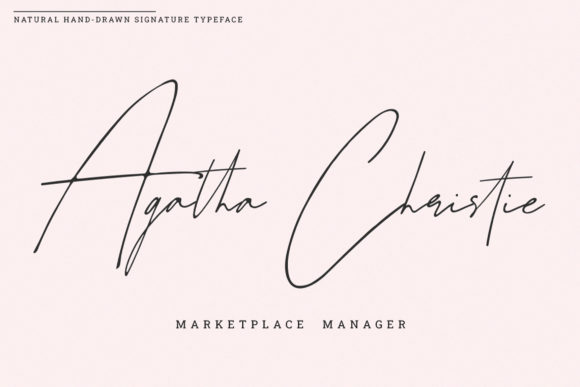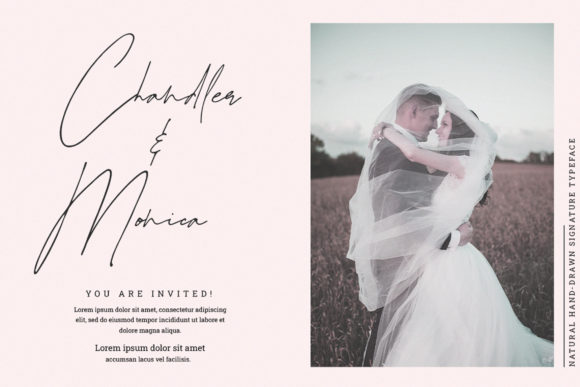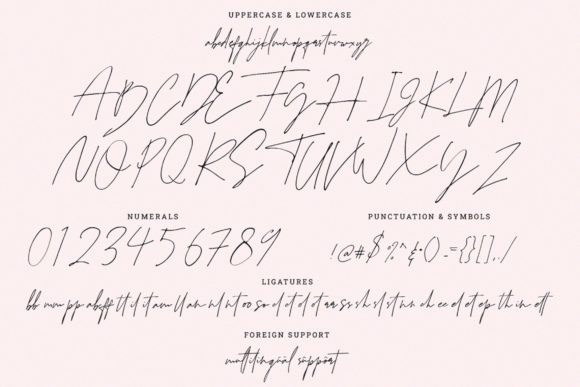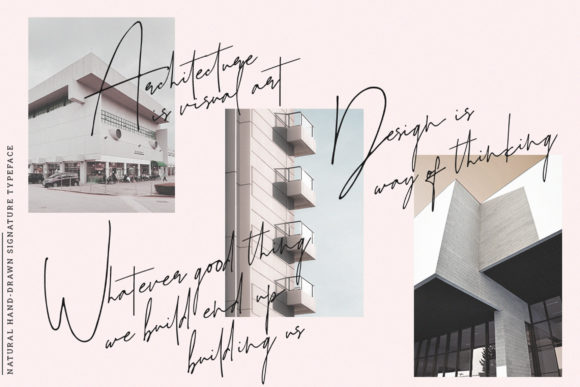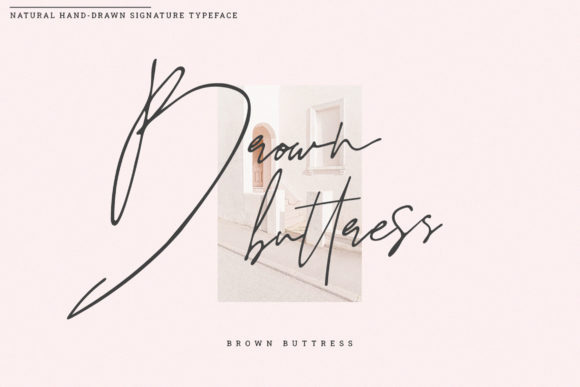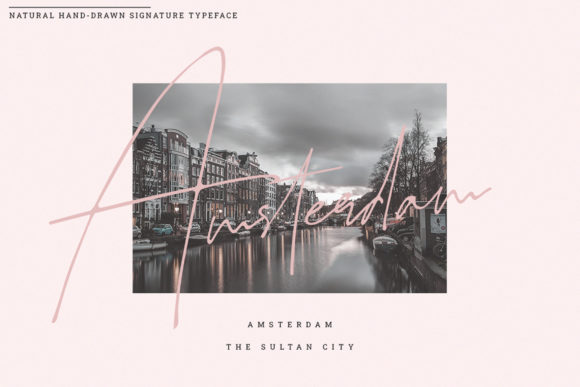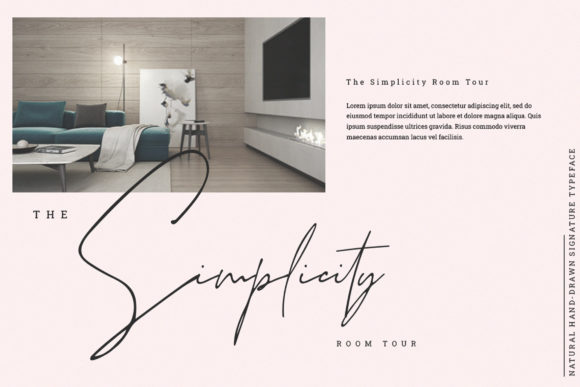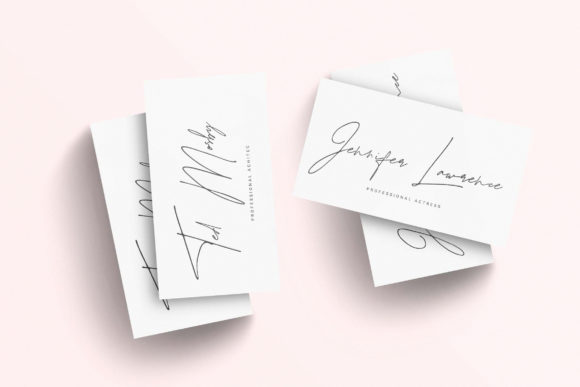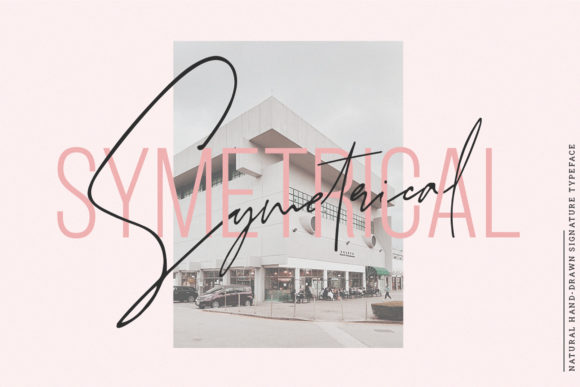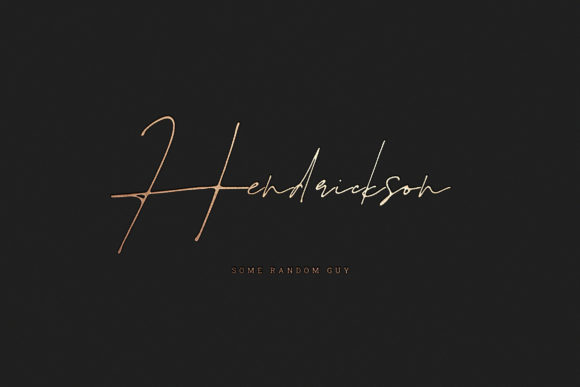
Juliette Font
About Juliette Font
Juliette is a thin and elegant handwritten font. This font that is suitable for branding, signature, wedding invitation, promotion, product packaging, and other needs. This font is natural, simple, but still authentic and very stylish.